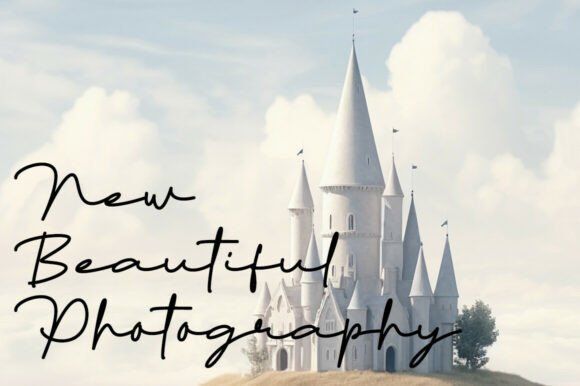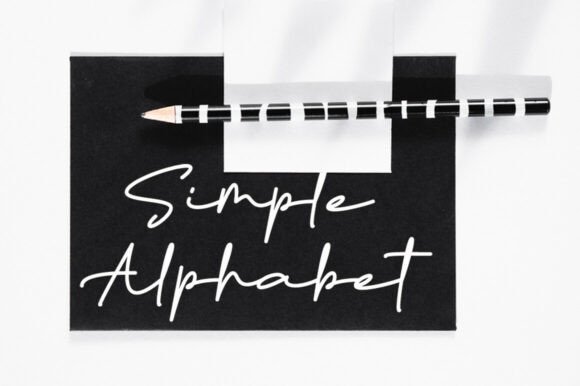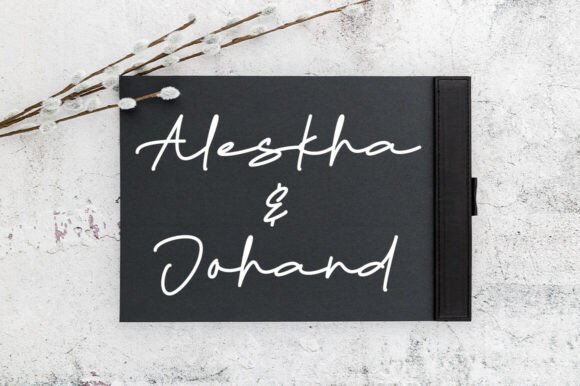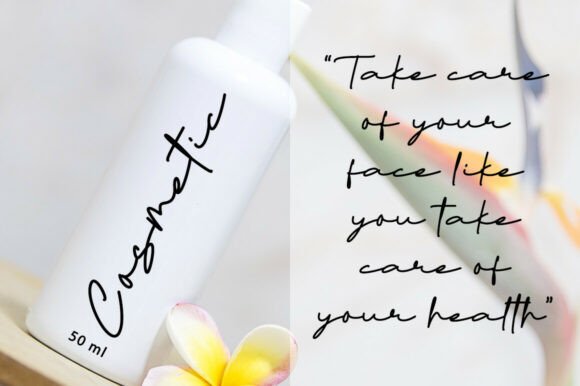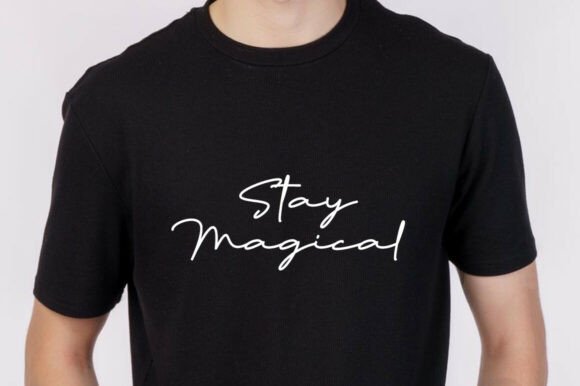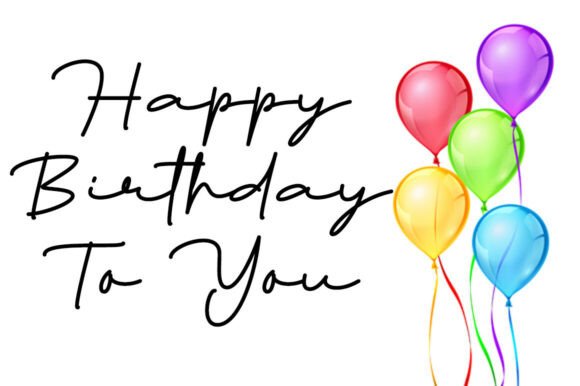
Unleash the Elegance: Discover the Black Magical Font
In the world of typography, fonts play a crucial role in conveying the tone and personality of a brand, design, or message. Among the numerous fonts available, the Black Magical font stands out for its unique blend of effortless charm and modern elegance. This sleek and stylish handwritten font has been gaining popularity among designers and crafters for its versatility and aesthetic appeal.
What is Black Magical Font?
Black Magical is a beautifully crafted handwritten font that exudes a sense of sophistication and elegance. Its smooth strokes and clean curves give it a distinctive look that is both casual and refined. This font is perfect for a wide range of design projects, including branding, quotes, invitations, and social media graphics.
Key Features of Black Magical Font
- Smooth Strokes: The font features smooth, flowing strokes that give it a natural and effortless look.
- Clean Curves: The clean curves and rounded edges of the font add to its elegance and sophistication.
- Handwritten Style: The handwritten style of the font gives it a personal and unique touch.
- Versatility: The font is versatile and can be used for a wide range of design projects.
Uses of Black Magical Font
The Black Magical font is perfect for designers and crafters looking to add a touch of elegance and sophistication to their projects. Here are some of the ways you can use this font:
- Branding: Use the Black Magical font to create stunning brand logos, business cards, and letterheads.
- Quotes and Posters: The font is perfect for creating inspirational quotes, posters, and social media graphics.
- Invitations: Add a touch of elegance to your invitations, wedding cards, and party invites with the Black Magical font.
- Social Media Designs: Use the font to create engaging social media graphics, including Facebook posts, Instagram stories, and Twitter headers.
Why Choose Black Magical Font?
With so many fonts available, why should you choose the Black Magical font? Here are some reasons:
- Unique Style: The font has a unique and distinctive style that sets it apart from other fonts.
- Elegance and Sophistication: The font exudes elegance and sophistication, making it perfect for high-end designs.
- Versatility: The font is versatile and can be used for a wide range of design projects.
- Easy to Read: The font is easy to read, making it perfect for body text and captions.
Tips for Using Black Magical Font
Here are some tips for using the Black Magical font:
- Pair it with Other Fonts: Pair the Black Magical font with other fonts to create a unique and interesting contrast.
- Use it for Headings: Use the font for headings and titles to add a touch of elegance and sophistication.
- Experiment with Colors: Experiment with different colors to find the perfect combination that works with the font.
- Keep it Simple: Keep your design simple and clean to let the font shine.
In conclusion, the Black Magical font is a stunning and versatile font that can add a touch of elegance and sophistication to any design project. Its smooth strokes, clean curves, and handwritten style make it perfect for branding, quotes, invitations, and social media designs. With its unique style and versatility, the Black Magical font is a must-have for designers and crafters looking to take their designs to the next level.